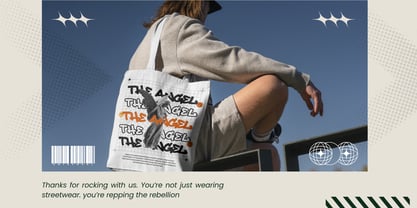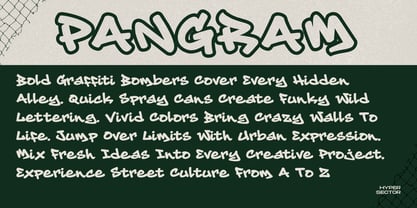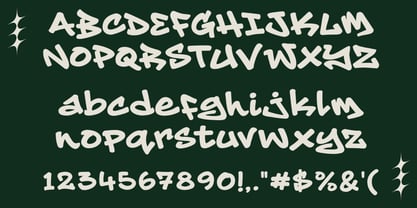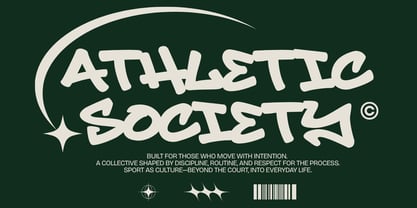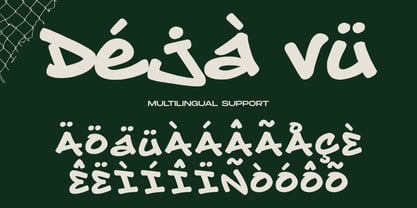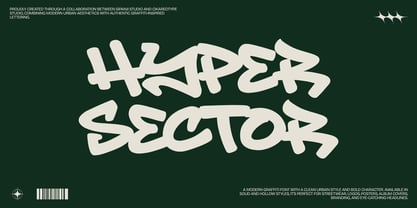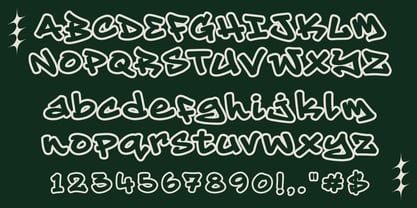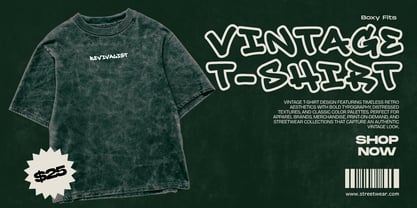
Hyper Sector
by Sipanji21
The Hyper Sector Font Family was designed by Sipanji and published by Sipanji21. Hyper Sector contains 2 styles and family package options. More about this family
Hyper Sector is a modern outlined graffiti display font that blends authentic street lettering with clean contemporary design. Created for bold headlines and impactful branding, this typeface comes with two complete styles—Regular and Outline—offering outstanding flexibility for layered typography and striking visual compositions. Inspired by marker tags, urban culture, and modern graphic design, Hyper Sector delivers strong character while maintaining excellent readability across both digital and print projects.
The family includes uppercase, lowercase, numbers, punctuation, and multilingual support, making it suitable for a wide variety of creative work. Whether you're designing logos, streetwear collections, posters, album covers, gaming graphics, YouTube thumbnails, esports branding, advertising campaigns, packaging, merchandise, or social media content, Hyper Sector provides the bold visual presence needed to capture attention. The clean outline style pairs perfectly with the solid version, allowing designers to build layered headlines and modern branding systems with ease. Hyper Sector is a versatile graffiti display font that brings authentic urban energy into professional creative projects.